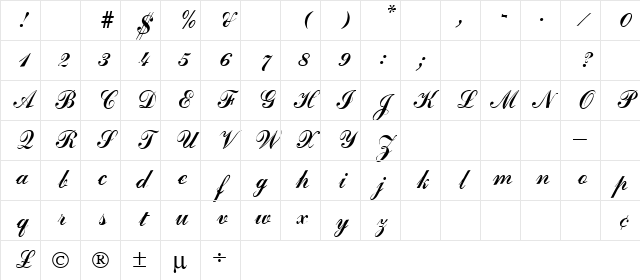
Arenski Regular Free Font
Arenski Regular
Design Context for Arenski
Arenski is a composed and adaptable typeface that performs quietly and consistently across a wide range of design contexts.